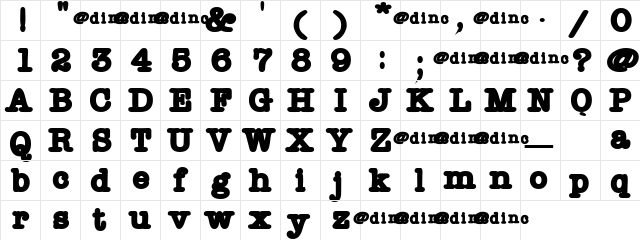
Rhymes Regular
Design Context for Rhymes Typeface
Rhymes is a composed and adaptable typeface that performs quietly and consistently across a wide range of design contexts.